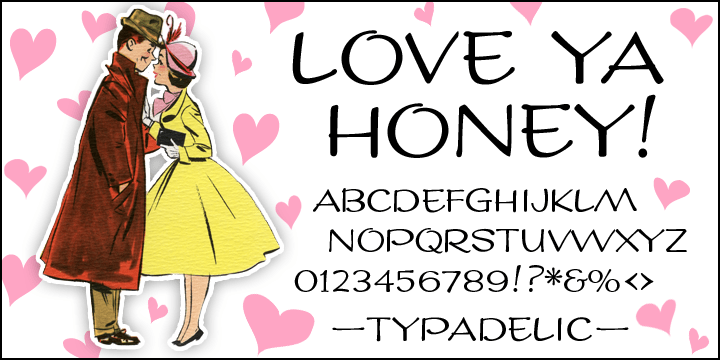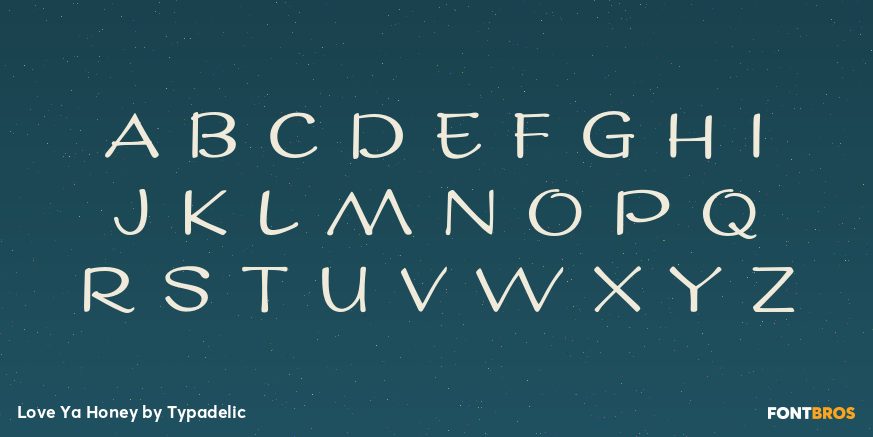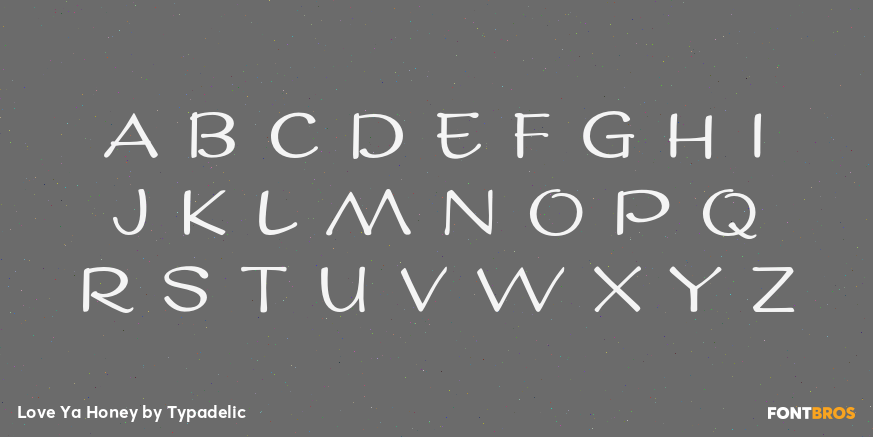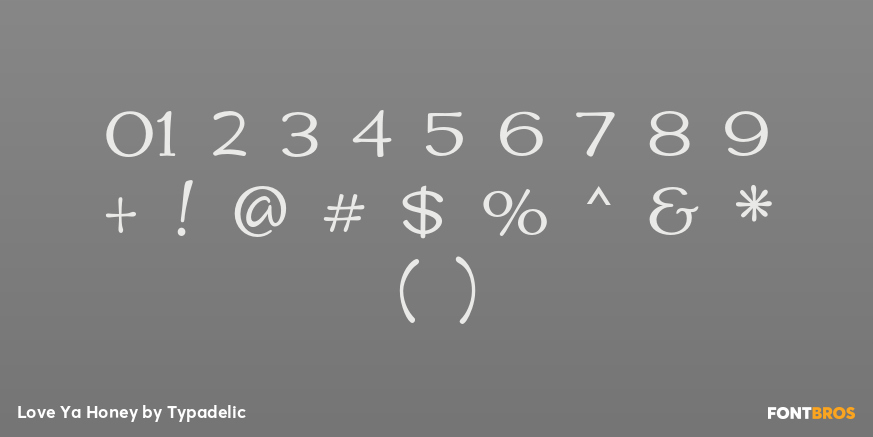
Love Ya Honey
Font Family by Typadelic
Aw, aren't they sweet? This lettering is based on a 1950s note a husband wrote to his wife shortly after they were married. His beautifully controlled and strong handwriting has no lowercase characters; he gets his point across in uppercase only. Love Ya Honey is very legible and looks beautiful when used for headlines, titling or even long expanses of body copy. Perfect for scrapbooking too!